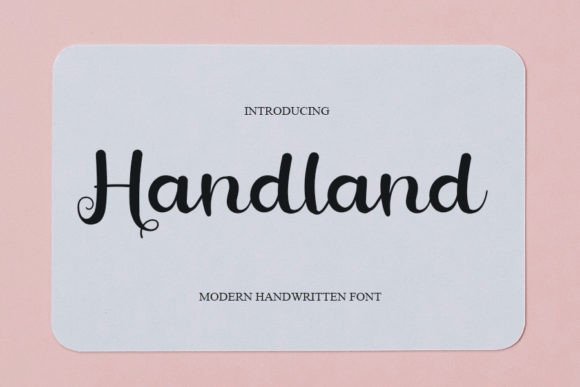
Unlock the Beauty of Handwritten Design with Handland Font
As a designer, there’s nothing quite like the thrill of bringing a project to life. You’ve poured your heart and soul into every detail, from the color palette to the typography. But sometimes, it’s the smallest elements that make the biggest impact – like the perfect handwritten font.
Enter Handland Font, a stylish and modern handwriting font that’s perfect for adding a touch of elegance to your designs. Inspired by classic calligraphy, Handland Font is carefully crafted to provide a balanced and varied look that’s neither too thin nor too thick. Whether you’re working on a wedding invitation, a brand logo, or a social media post, Handland Font is the perfect choice to elevate your project and make it truly special.
As a designer, you know how important it is to have the right tools at your fingertips. Handland Font is a valuable addition to any design arsenal, offering a unique and versatile look that’s sure to impress. With its spotless form and modern vibe, Handland Font is the perfect way to add a personal touch to your designs and make them truly stand out.
Key Features of Handland Font
- Font Family: Handland Font is a script font with a calligraphic feel, ideal for creative projects.
- Unique Characteristics: Features a unique, handwritten style with varying line widths, making it perfect for adding a personal touch to designs.
Handland Font Review
Overall, I think Handland Font is a great addition to any designer’s toolkit. It’s got a certain charm to it that sets it apart from other fonts.
- ✨ Friendly, approachable feel: The font’s rounded edges and subtle flair make it perfect for designs that need to convey a sense of warmth and approachability.
- ✨ Versatility: Handland Font can be used for a wide range of projects, from branding and marketing materials to digital products and websites.
- ✨ Well-suited for body text: The font is clear and easy to read, making it a great choice for body text in your designs.
- ⚠️ Limited bold and italic options: While the font has a range of weights, the bold and italic options are a bit limited, which can make it tricky to use in certain situations.
- ⚠️ Not ideal for headlines: While the font is great for body text, it’s not the best choice for headlines, as it can get a bit lost in larger sizes.
Overall, I think Handland Font is a solid choice for designers looking for a friendly, approachable font that’s easy to use. With a little bit of creativity and planning, you can work around its limitations and create some amazing designs.
Tips for Getting the Most Out of Handland Font
For the best results, use the Handland Font in conjunction with bold or italic text to add emphasis.
Handland Font is ideal for:
- Brand identity and logos
- Restaurant menus and signage
Alternatives to Handland Font
Playfair Display is a luxurious, elegant serif font suitable for high-end branding, luxury products, and formal invitations. It has a classic feel and is ideal for creating a sophisticated and refined atmosphere.
Comparison to Handland Font: Playfair Display is more ornate and luxurious compared to Handland Font, which has a more modern and minimalist feel. While Handland Font is great for digital interfaces, Playfair Display excels in print materials and formal designs.
Montserrat is a modern sans-serif font that works well for urban and minimalist designs. It’s ideal for digital interfaces, logos, and branding materials that require a clean and modern look.
Comparison to Handland Font: Montserrat has a more geometric and urban feel compared to Handland Font, which has a more rounded and friendly appearance. While Handland Font is great for creating a welcoming atmosphere, Montserrat is better suited for modern and edgy designs.